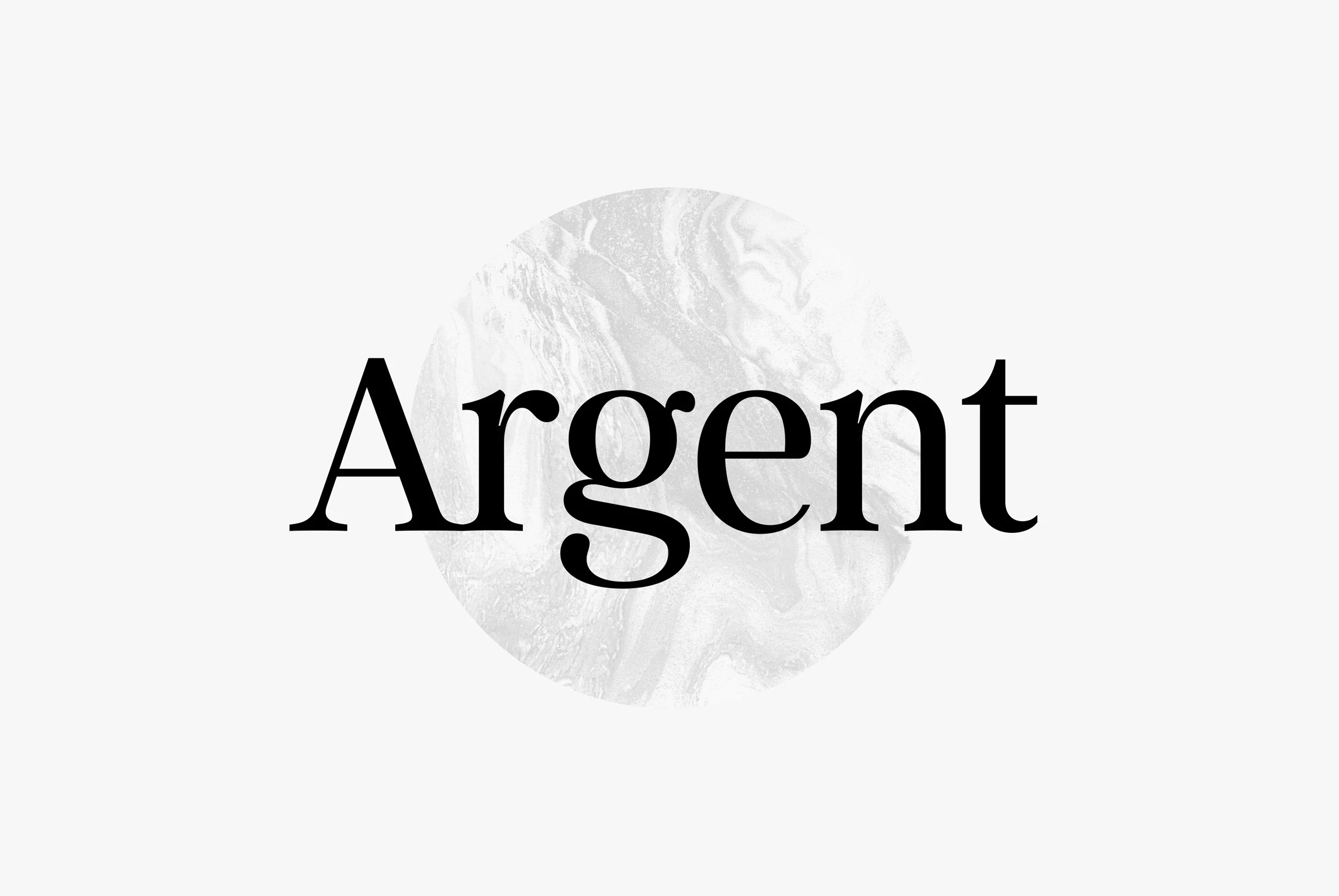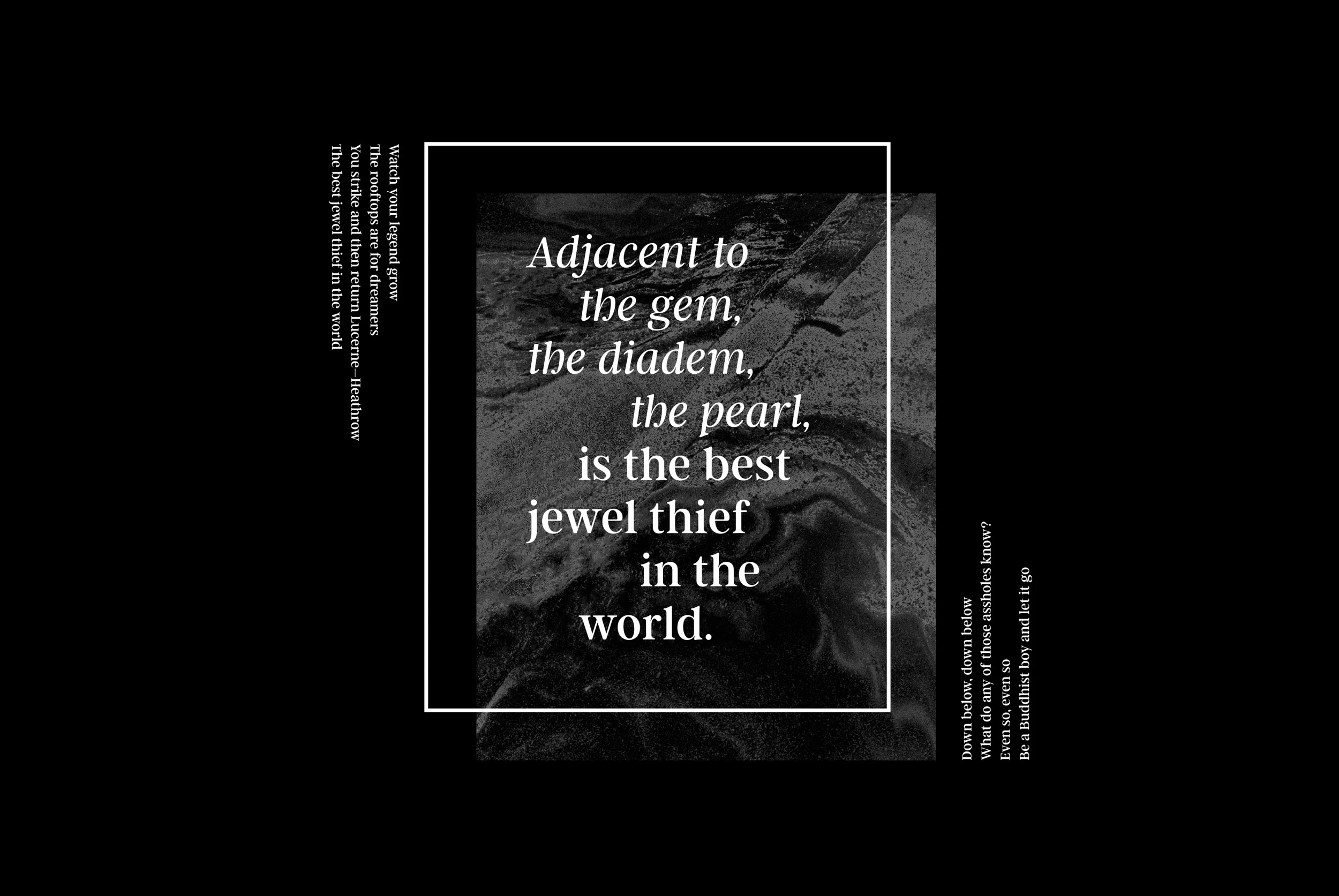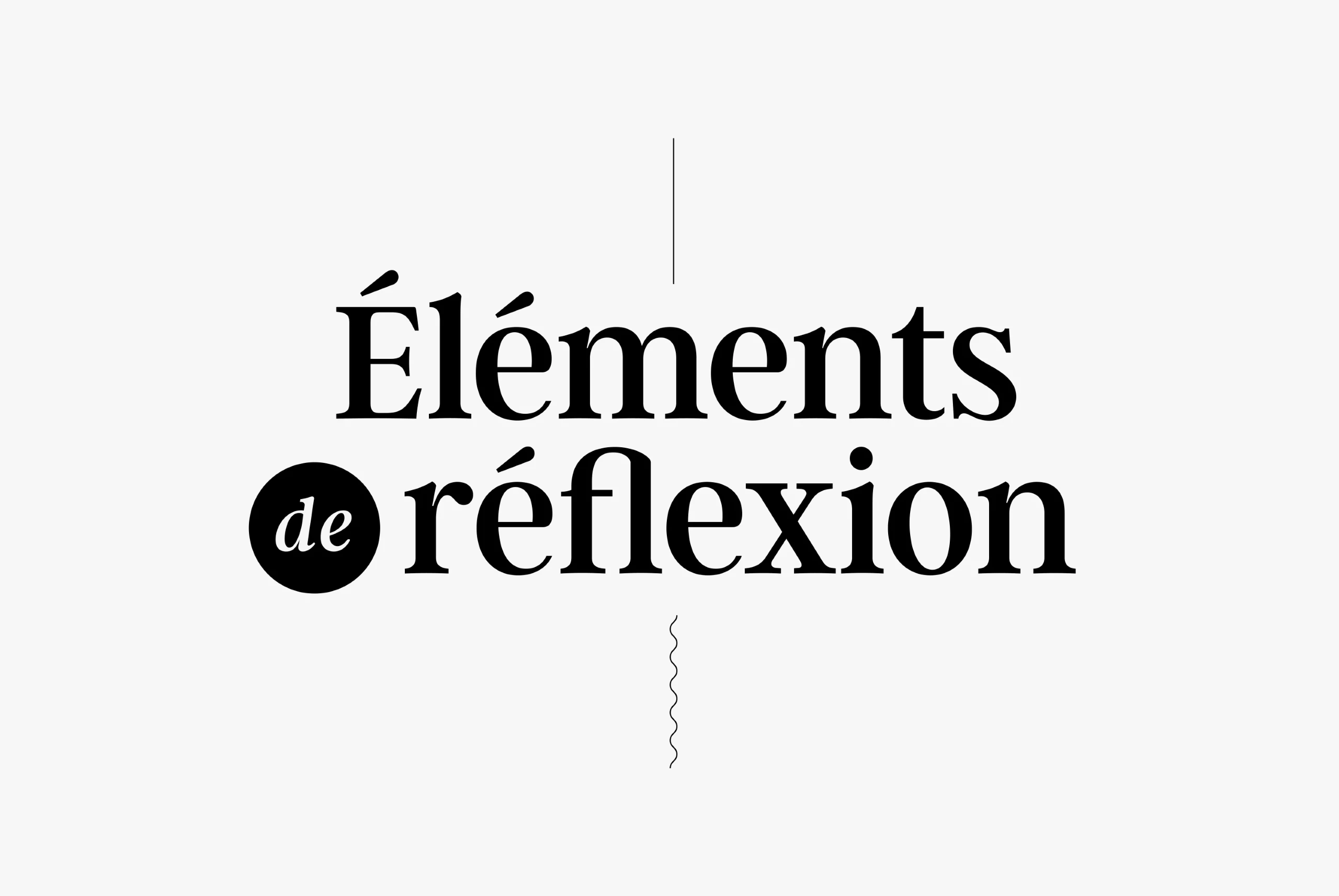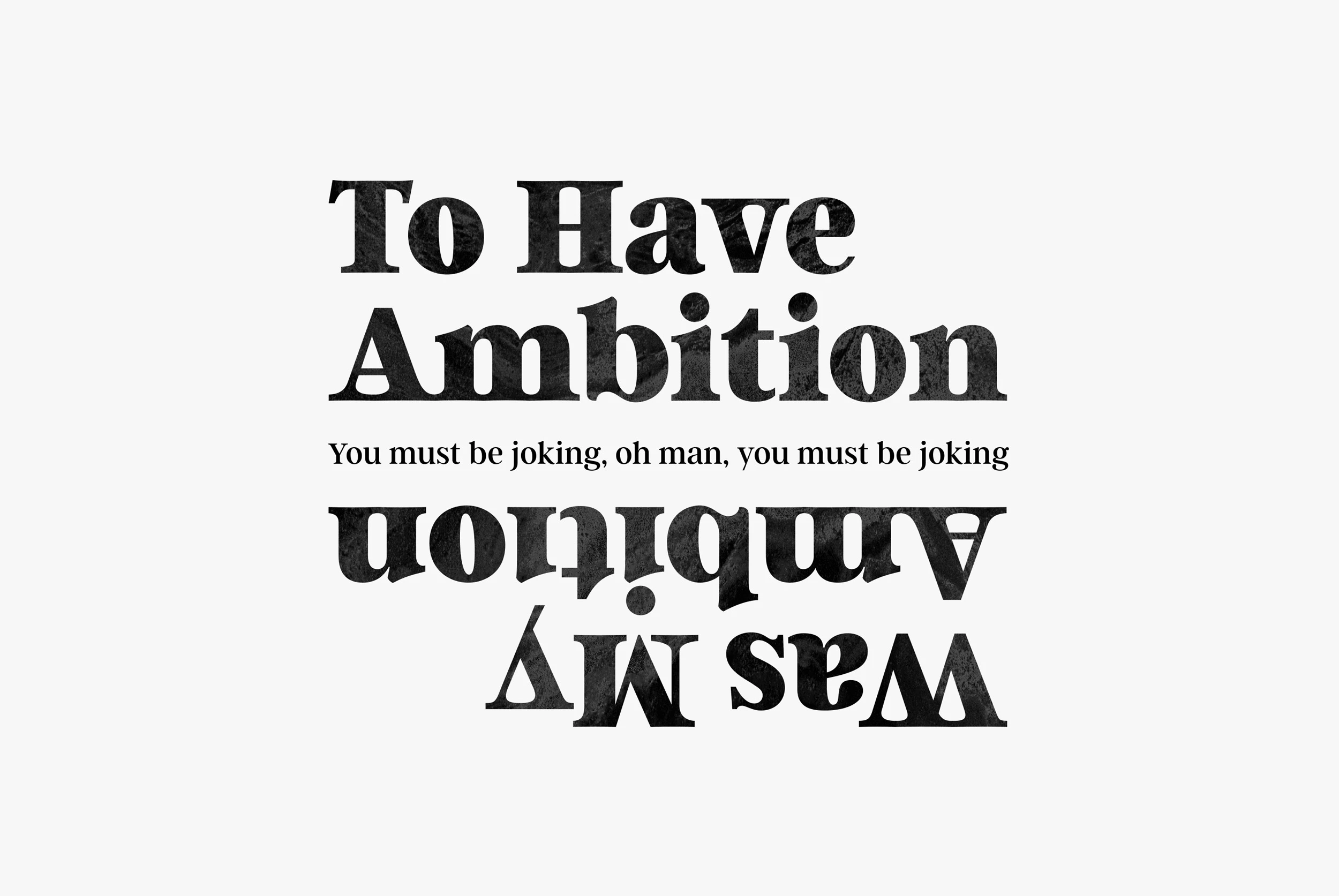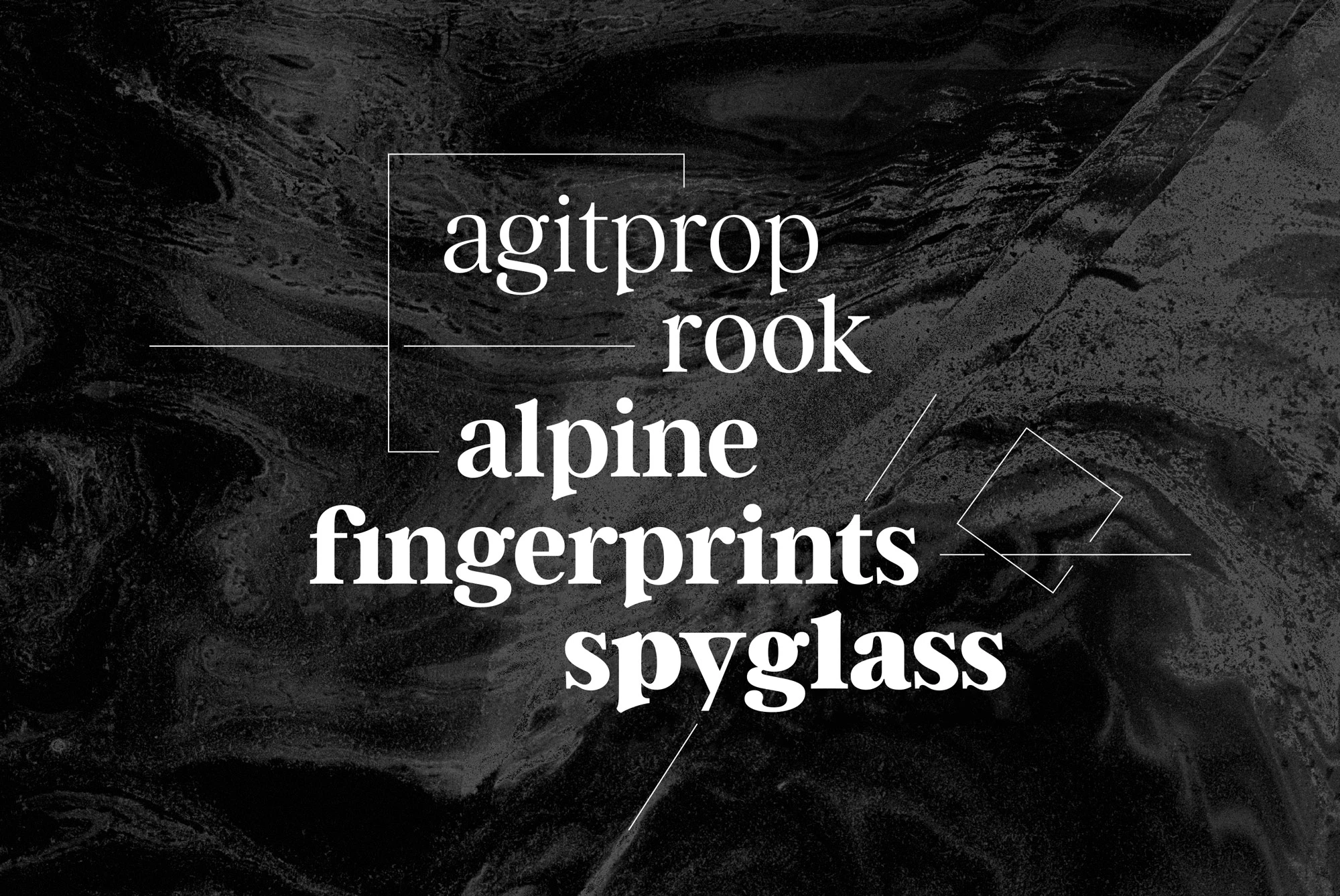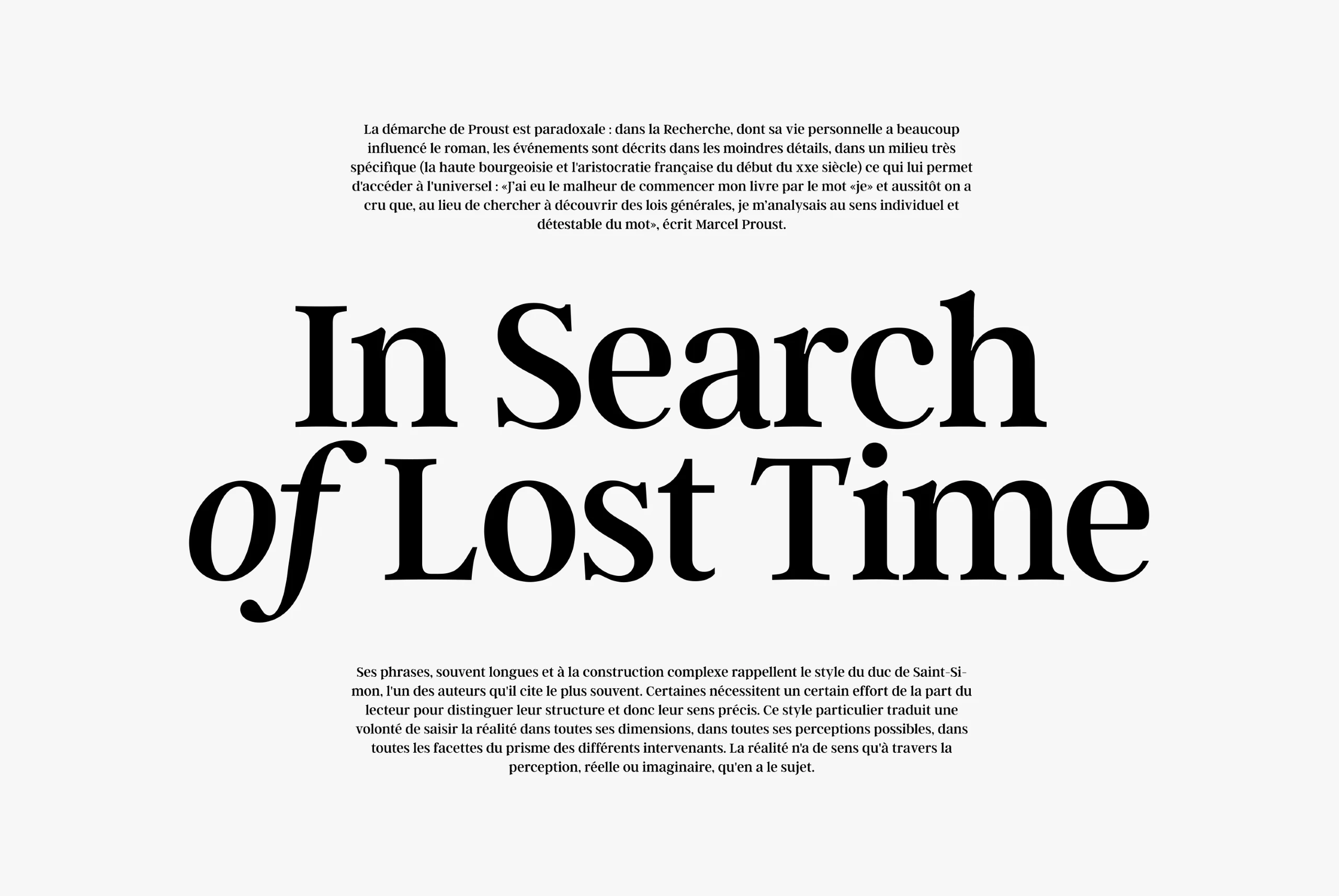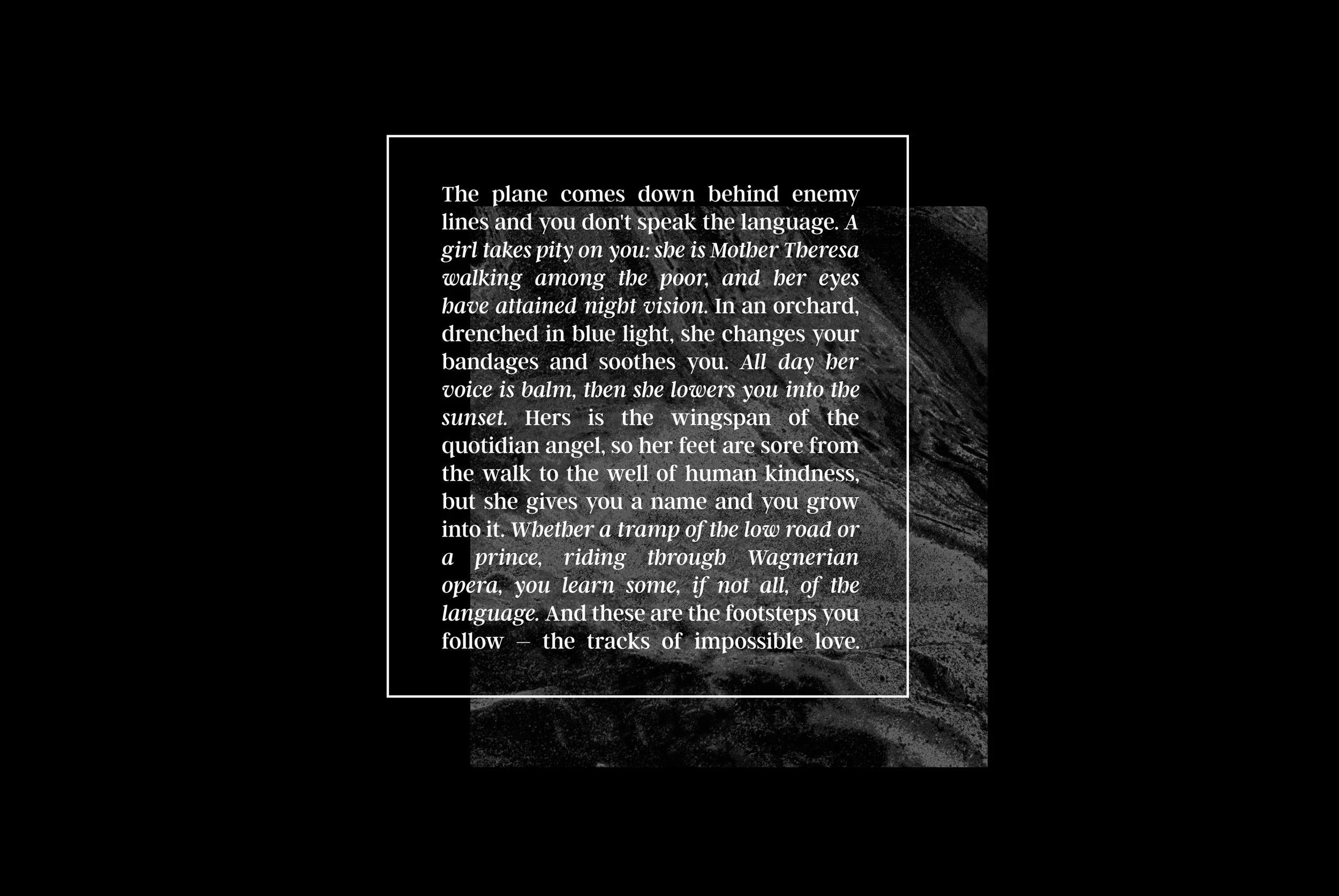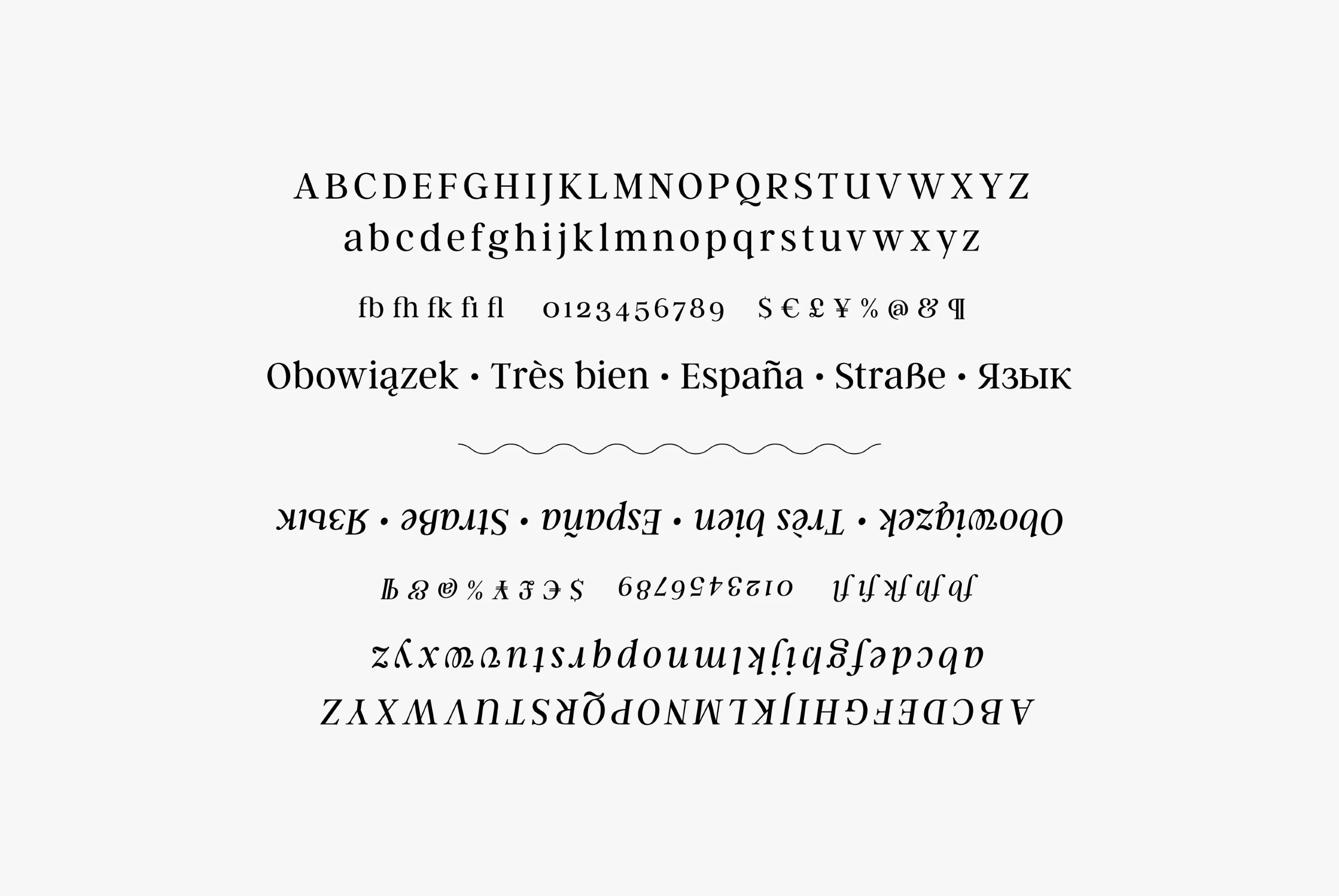
Argent
Argent CF is dashing and expressive, with a pronounced x-height and evocative, flowing letterforms. Featuring charming italics, a host of OpenType features, wide language support, and lots of character, Argent excels at headings, titles, and logos. Argent CF is a serif font family. This typeface has thirteen styles and was published by Connary Fagen Type Design.
seven Weights in Latin & Cyrillic Script
Language support includes Belarusian, Bulgarian, Catalan, Chinese Pinyin, Croatian, Czech, Danish, Dutch, English, Filipino, Finnish, French, Fula, German, Hungarian, Indonesian, Italian, Latvian, Macedonian, Malay, Maltese, Norwegian, Polish, Portuguese, Romanian, Russian, Serbian, Slovak, Slovenian, Spanish, Swedish, Turkish, Ukrainian, Uzbek